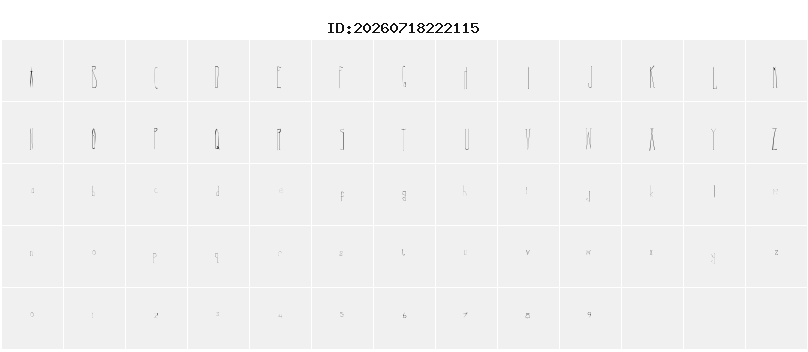
About Correy's.ttf
Correy's.ttf is a modern, elegant sans-serif font designed for ultimate readability and visual harmony. Perfect for branding, headlines, web design, and print materials.